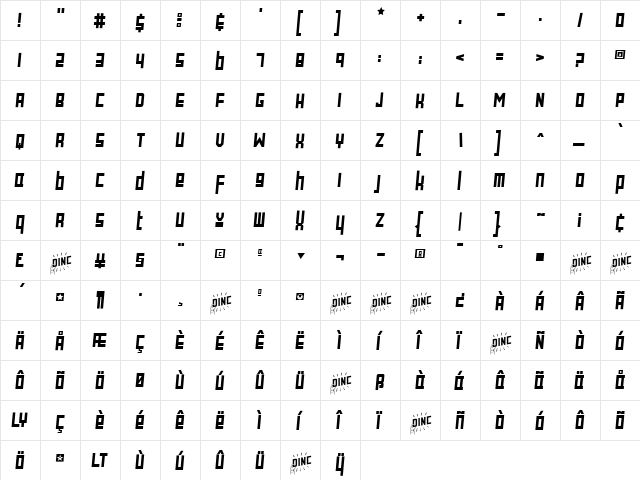
Satellite Regular
Design Context for Satellite Typeface
Satellite offers clean, dependable letterforms without strong stylistic allegiance, making it a practical choice for designers who need flexibility.
Pro Tip: Use Satellite in both headline and body roles to test its range before committing to a single application.